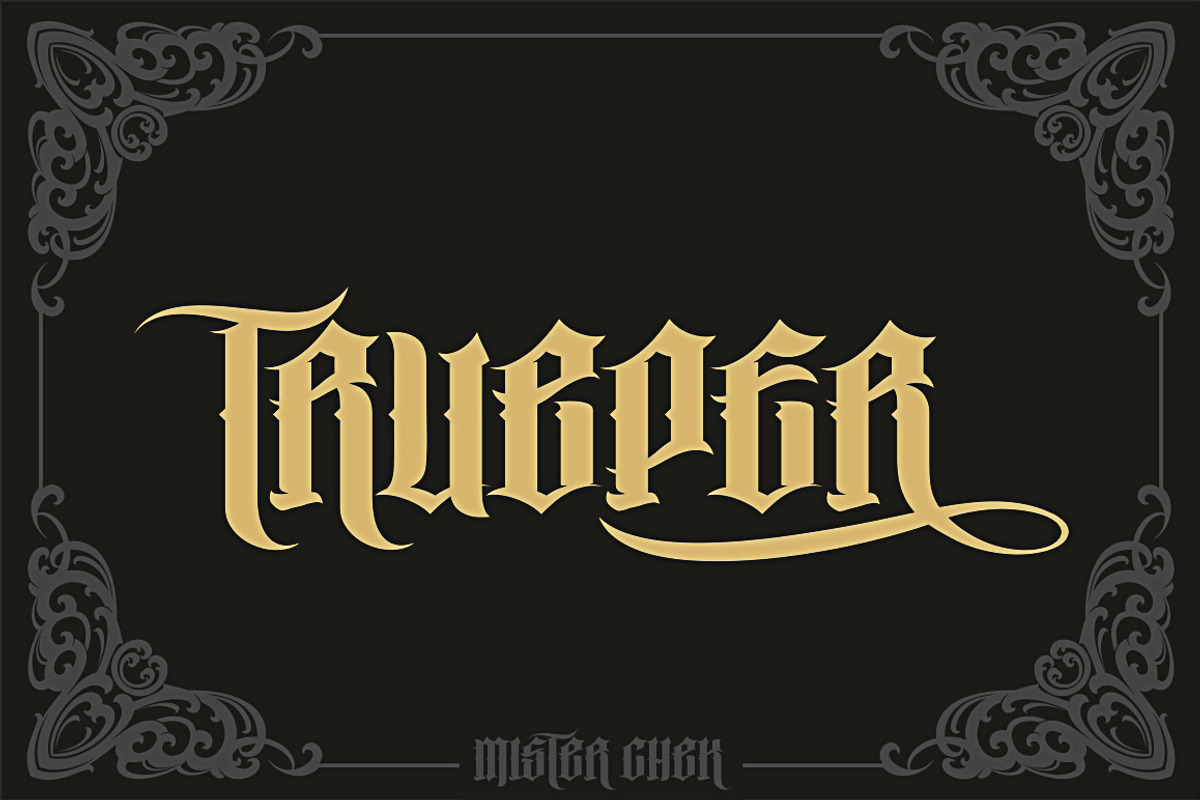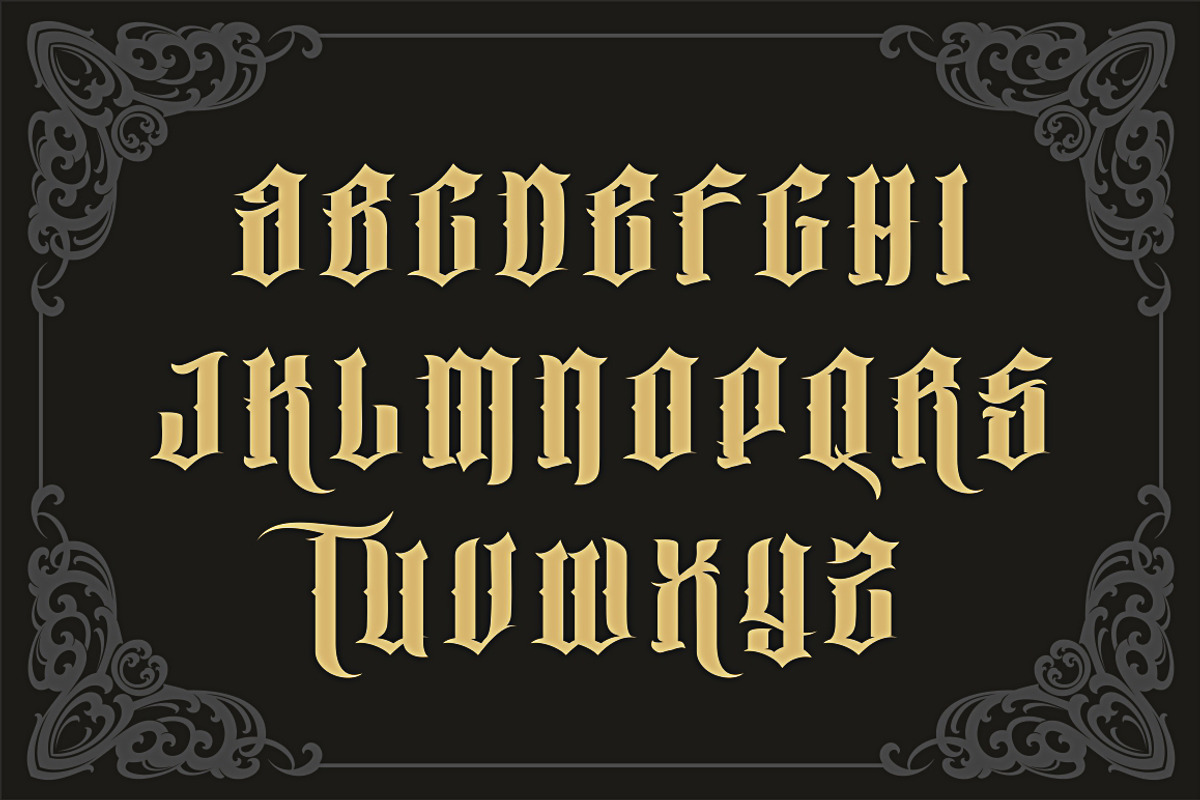
Trueper Font
Trueper Font by Mister Chek is a font selected for branding, posters, packaging, typography.
Why Trueper Font is worth a look
Trueper Font by Mister Chek fits naturally into Branding, posters, packaging, typography.